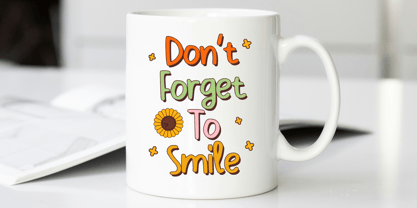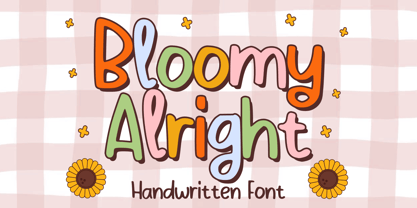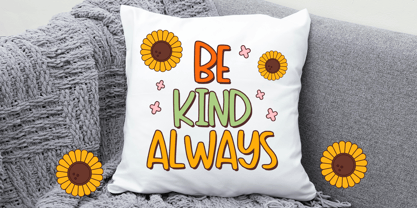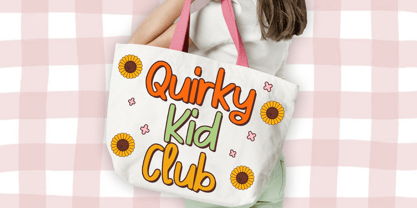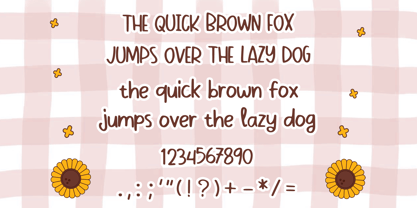
Bloomy Alright
by Mvmet
The Bloomy Alright Font Family was designed by Gabriel Valentinus and published by Mvmet. Bloomy Alright contains 1 styles.
Bloomy Alright is a fun, versatile and cute comic font that you can use for many designs themes. It will elevate a wide range of design projects to the highest level. You can use this font for many design ideas such as stickers, t-shirt designs, amazing logo designs, magazine or book covers, comics, cartoon drawings, daily typing, and many more. This font will add a super cool touch to your designs!